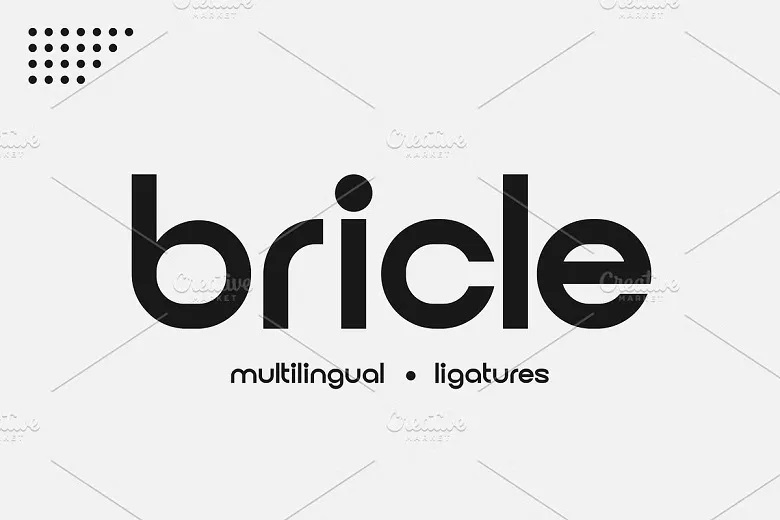
Bricle Font
Bricle Font is an unusual sans-serif logo font designed by Iwan Alwan – The letter forms are very different with the upper and the lower case letters. It has support for multiple languages and quite aesthetically has some beautiful ligatures which makes it very suitable for most of the designs. Especially designed for magazine, business cards, posters, and other stuff,
Bricle adds a modern creative highlight to each work. This fonts are suitable for product logo, wedding card logo, clothing brand logo, Vintage designs, etc.
Bricle Sans Serif Logo Font